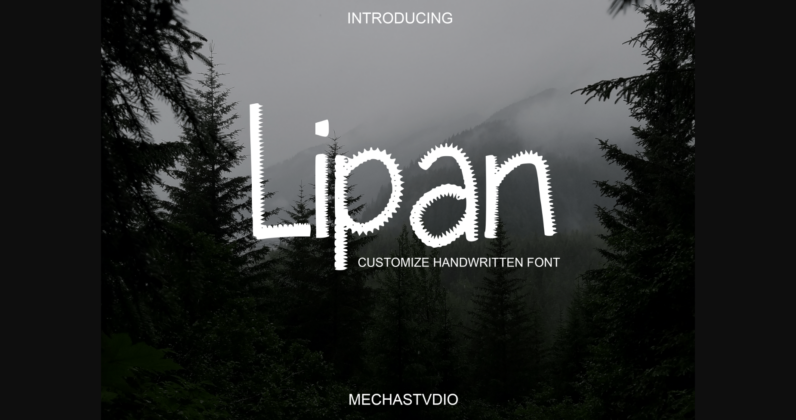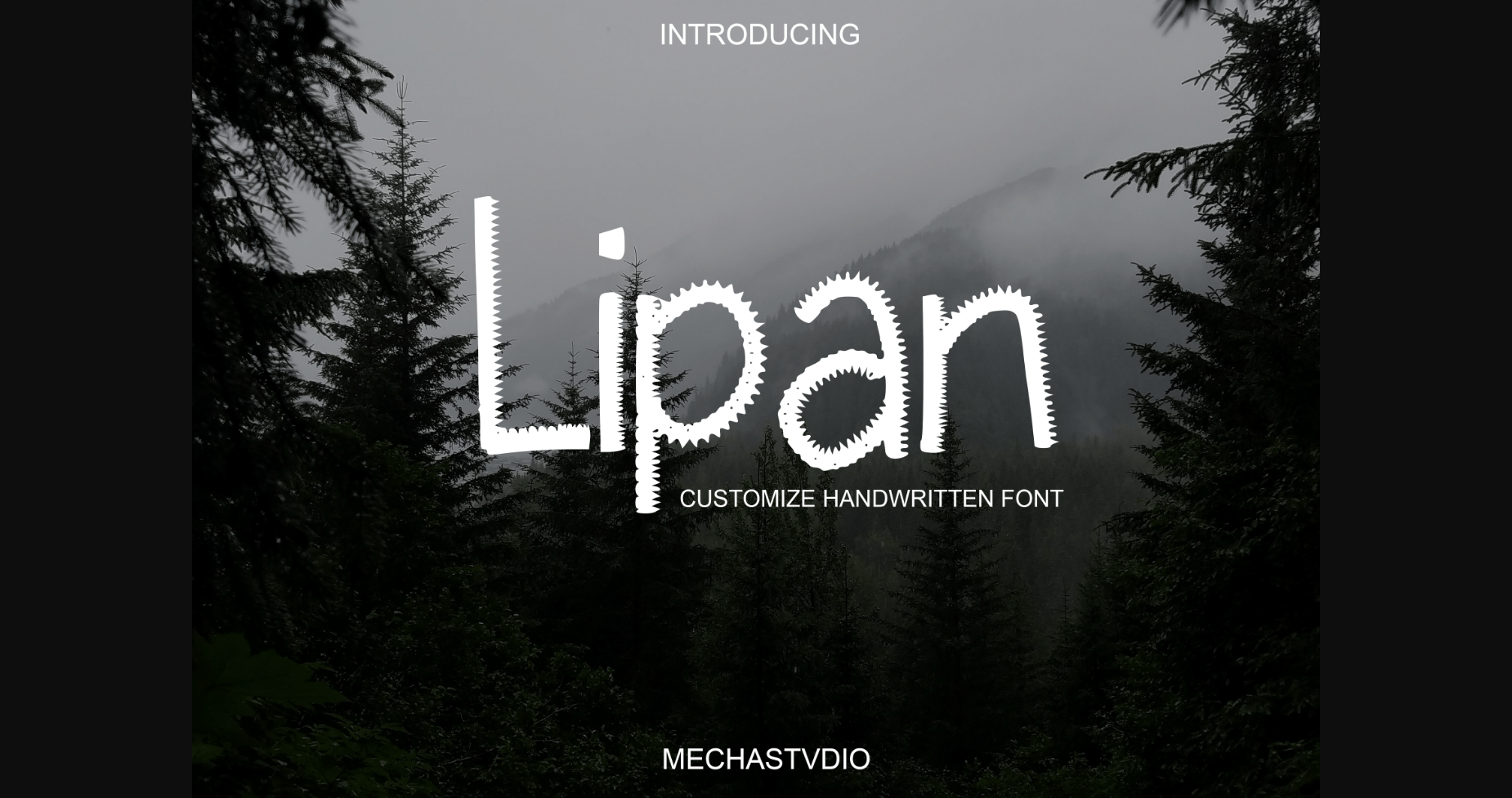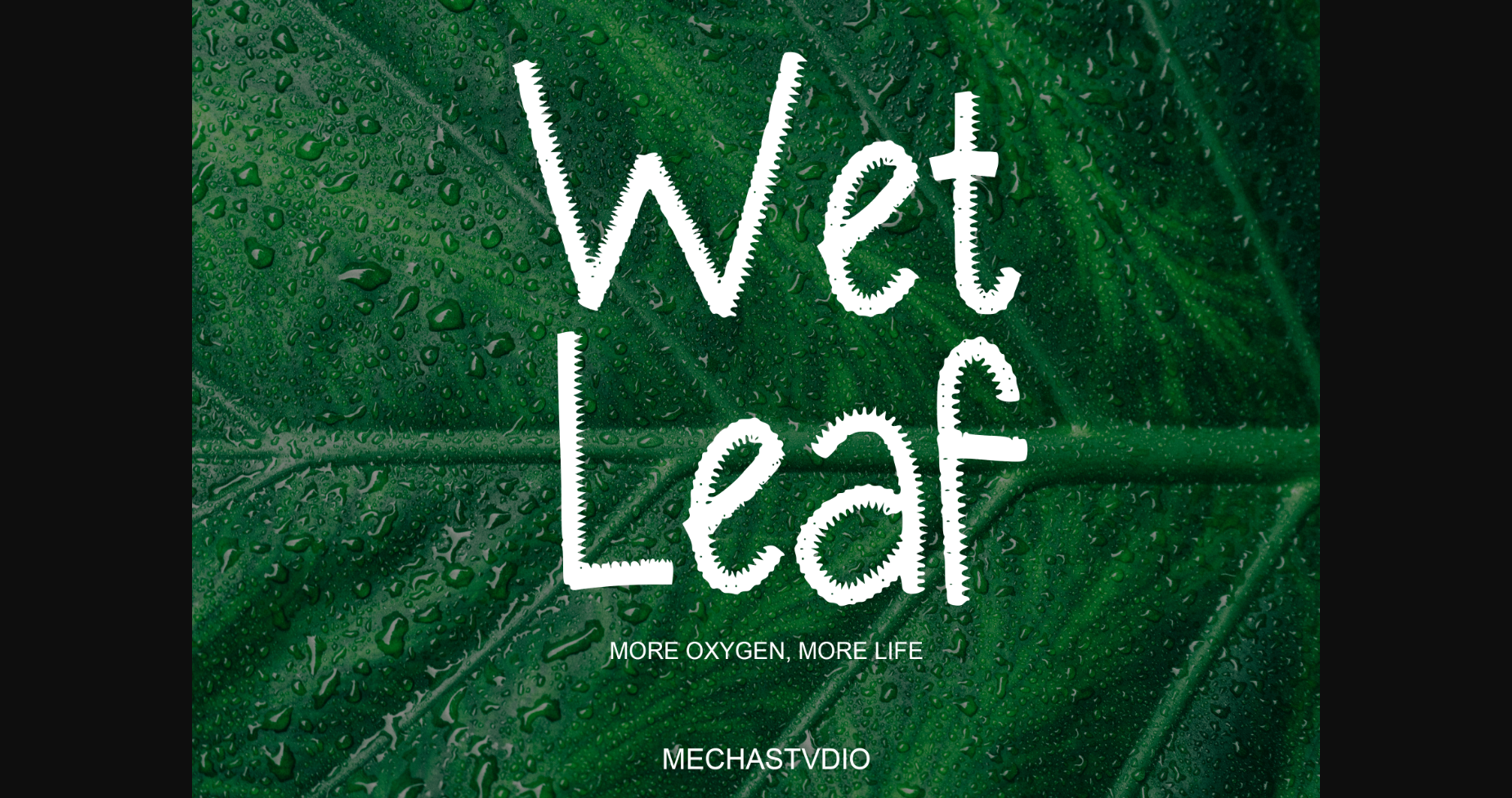
Lipan Font
About Lipan Font
Lipan is a simple custom sans serif font with a simple unique feel and a modern impact. It will add a natural spark to any design project that you wish to create.